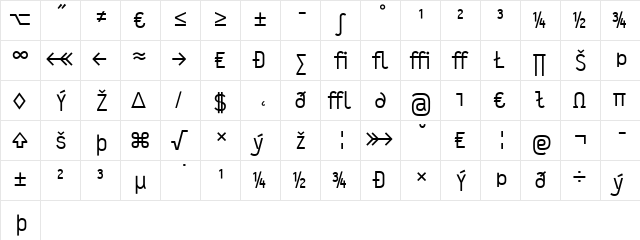
Typestar Regular
Design Context for Typestar Typeface
Typestar is a composed and adaptable typeface that performs quietly and consistently across a wide range of design contexts.